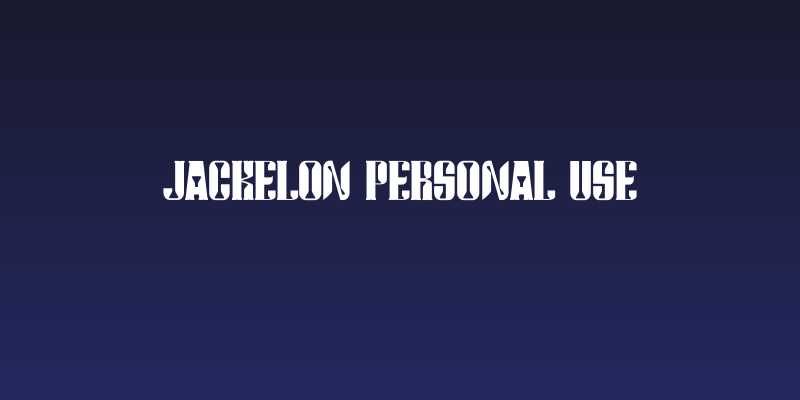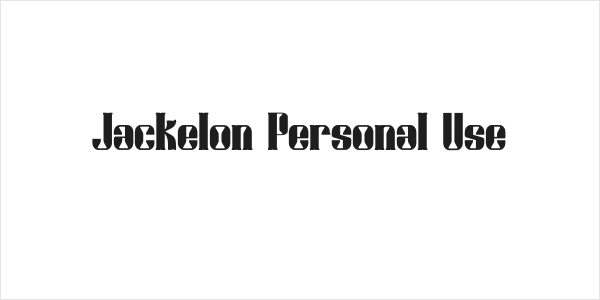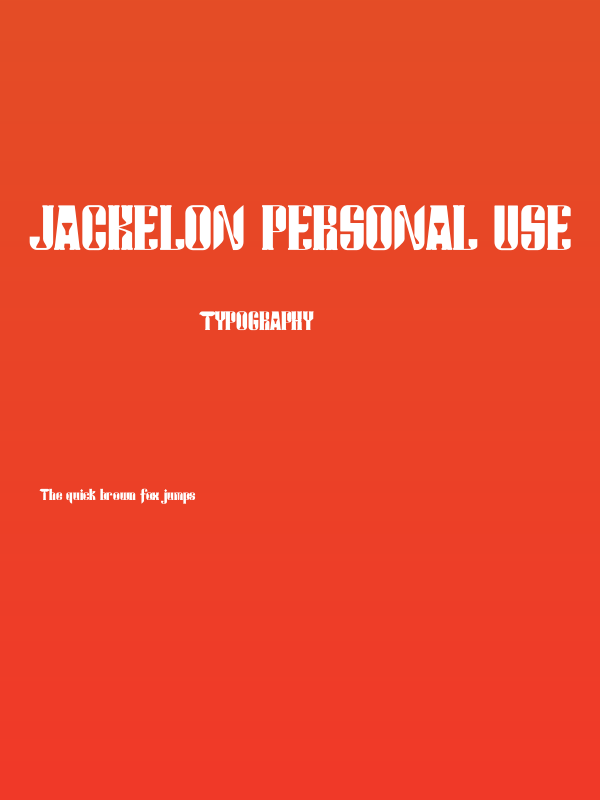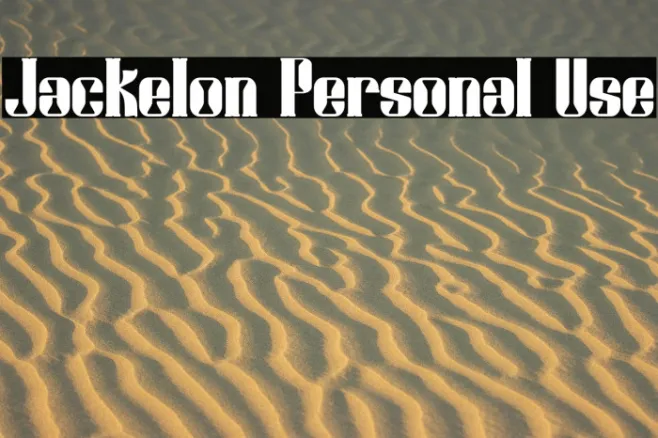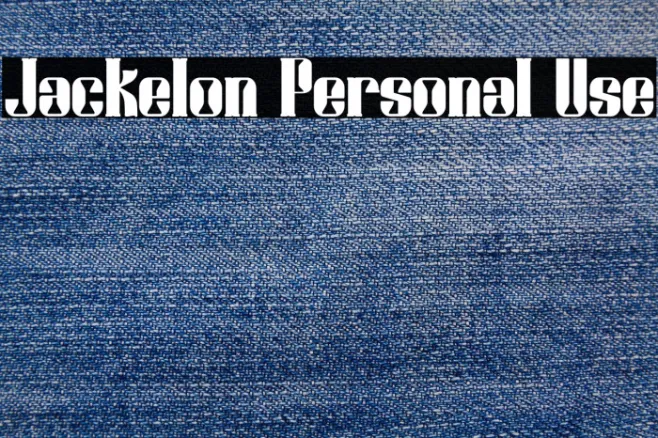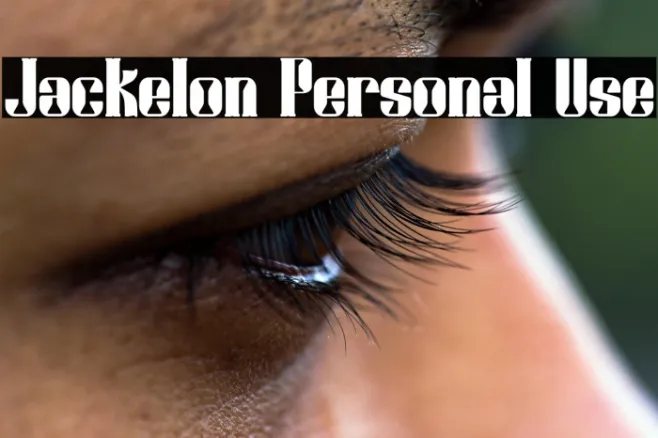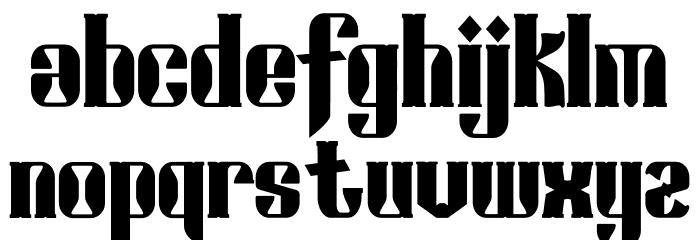
Jackelon Personal Use Font
Jackelon Personal Use Description
This font features a bold and striking design with a strong presence. The uppercase letters are characterized by sharp angles and thick strokes, giving them a commanding appearance. The lowercase letters maintain the boldness but introduce some curves, adding a touch of softness to the overall look. The font's style is reminiscent of Gothic or Blackletter influences, with a modern twist that makes it suitable for contemporary designs. The characters are tightly spaced, enhancing the bold and impactful nature of the font. This font is ideal for projects that require a dramatic and eye-catching typeface.
| Overall Style | Modern Gothic |
| Proposed Projects | Perfect for posters, logos, headlines, and any design needing a dramatic flair. |